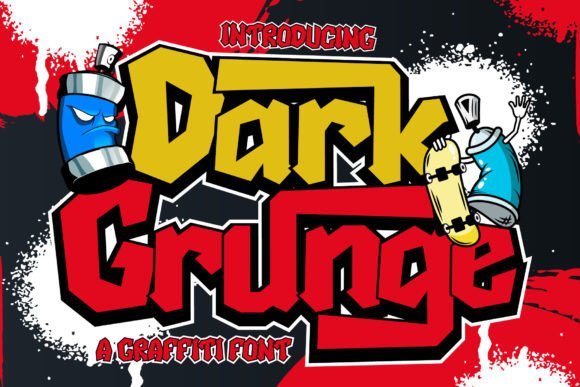
Introduction to Dark Grunge Font
Dark Grunge is a bold and chunky lettered display font that playfully evokes the iconic look and style of graffiti.
This font is suitable for designs such as t-shirts, sportswear, logos, advertisements, clothing, and more Add this font to your urban and casual creations and you will love the outcome.